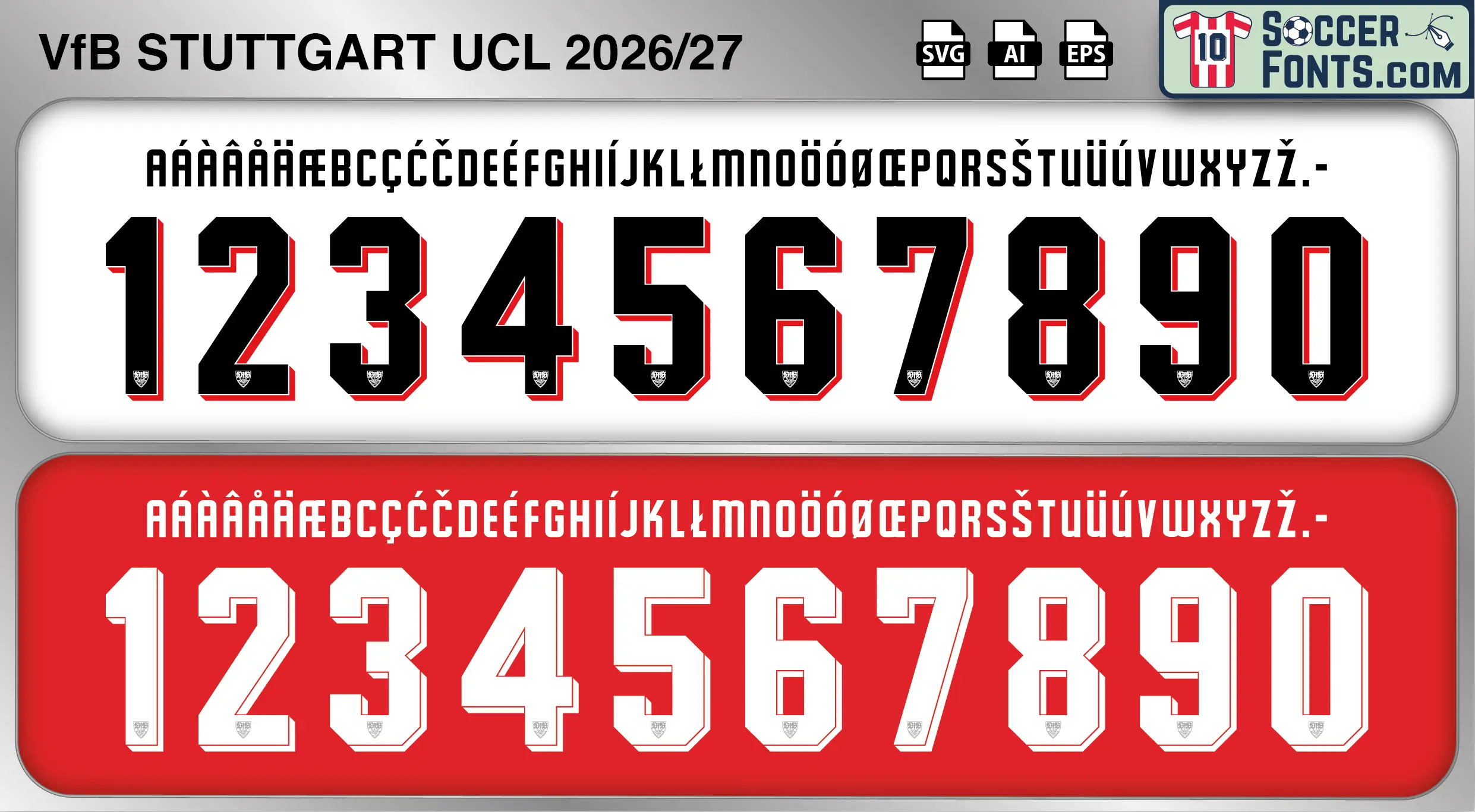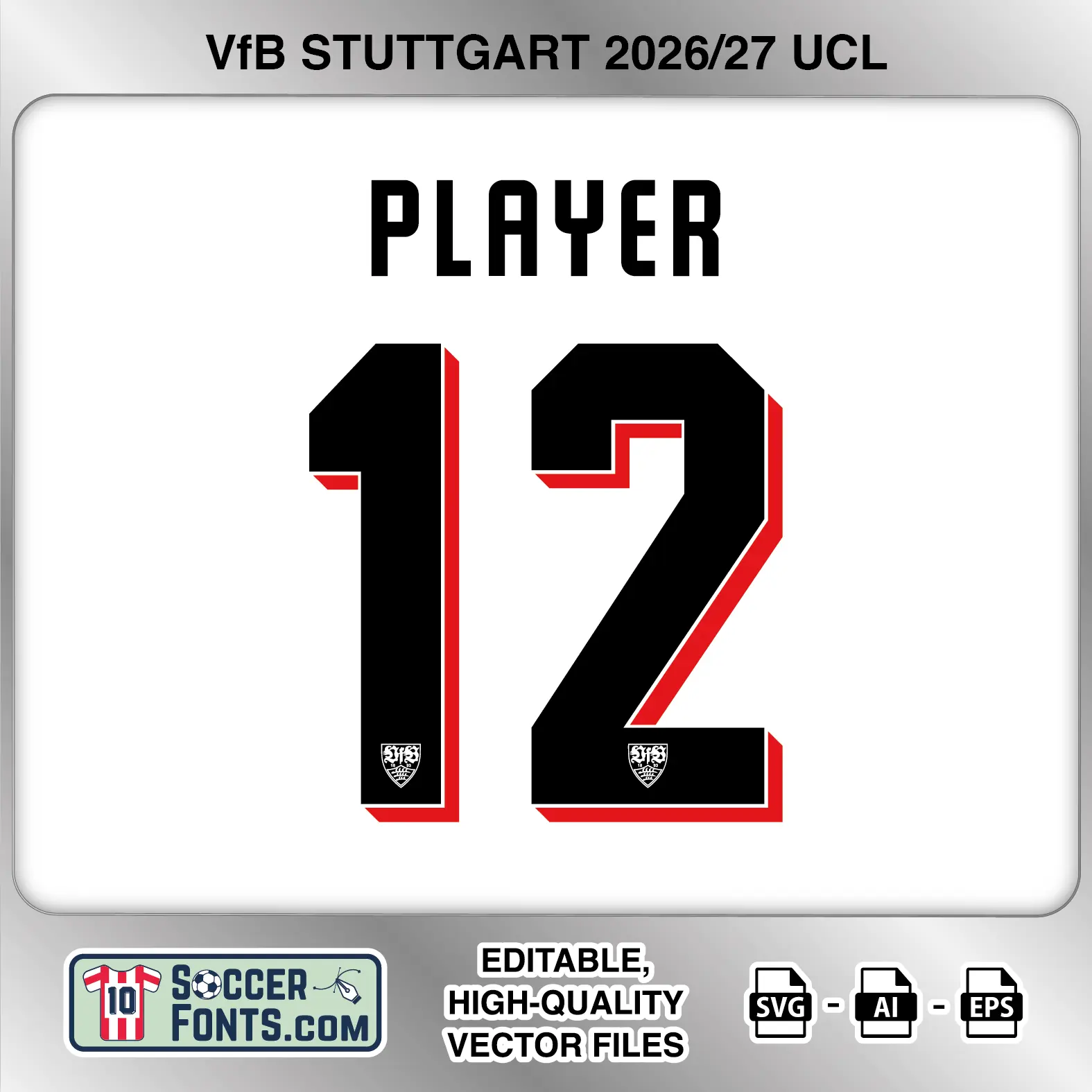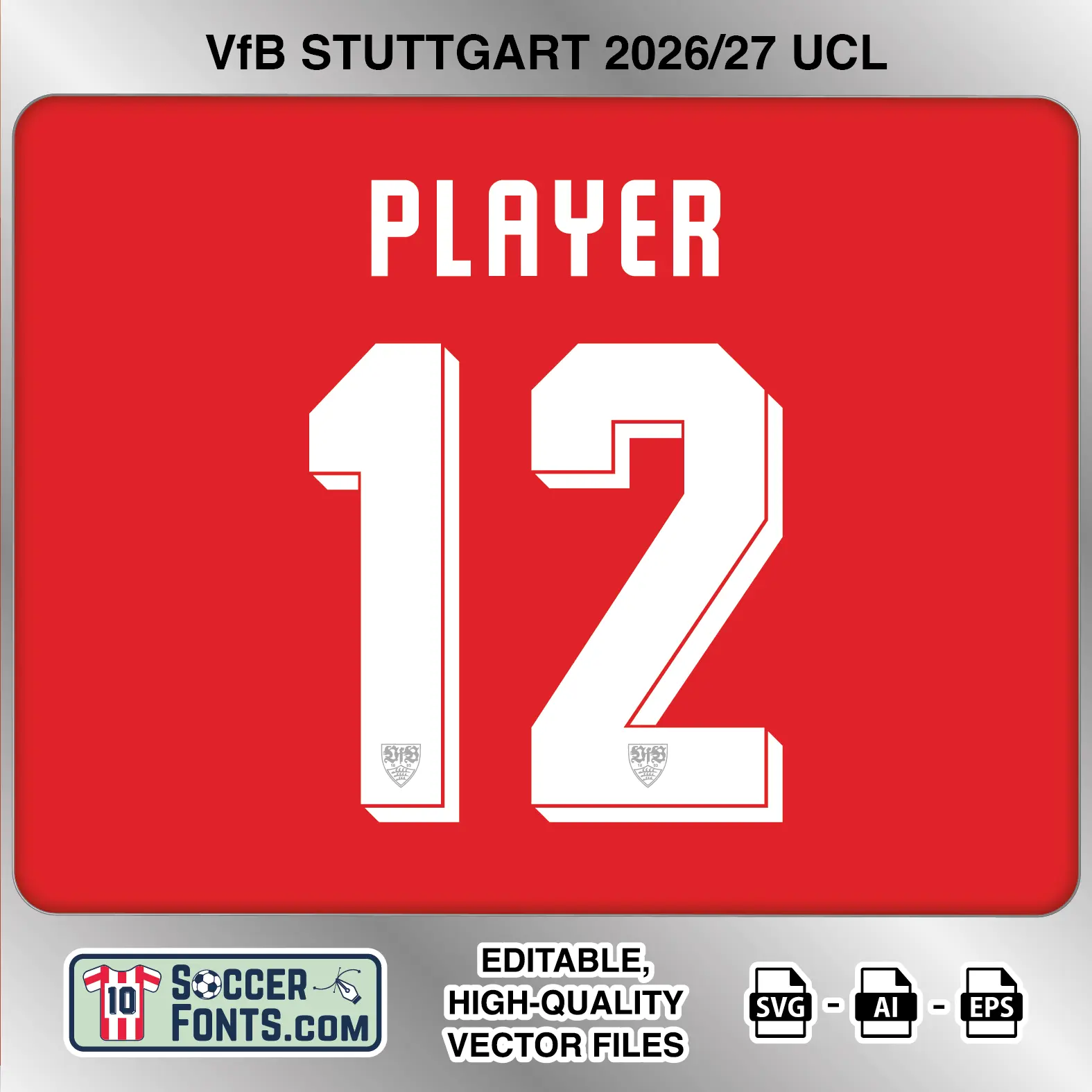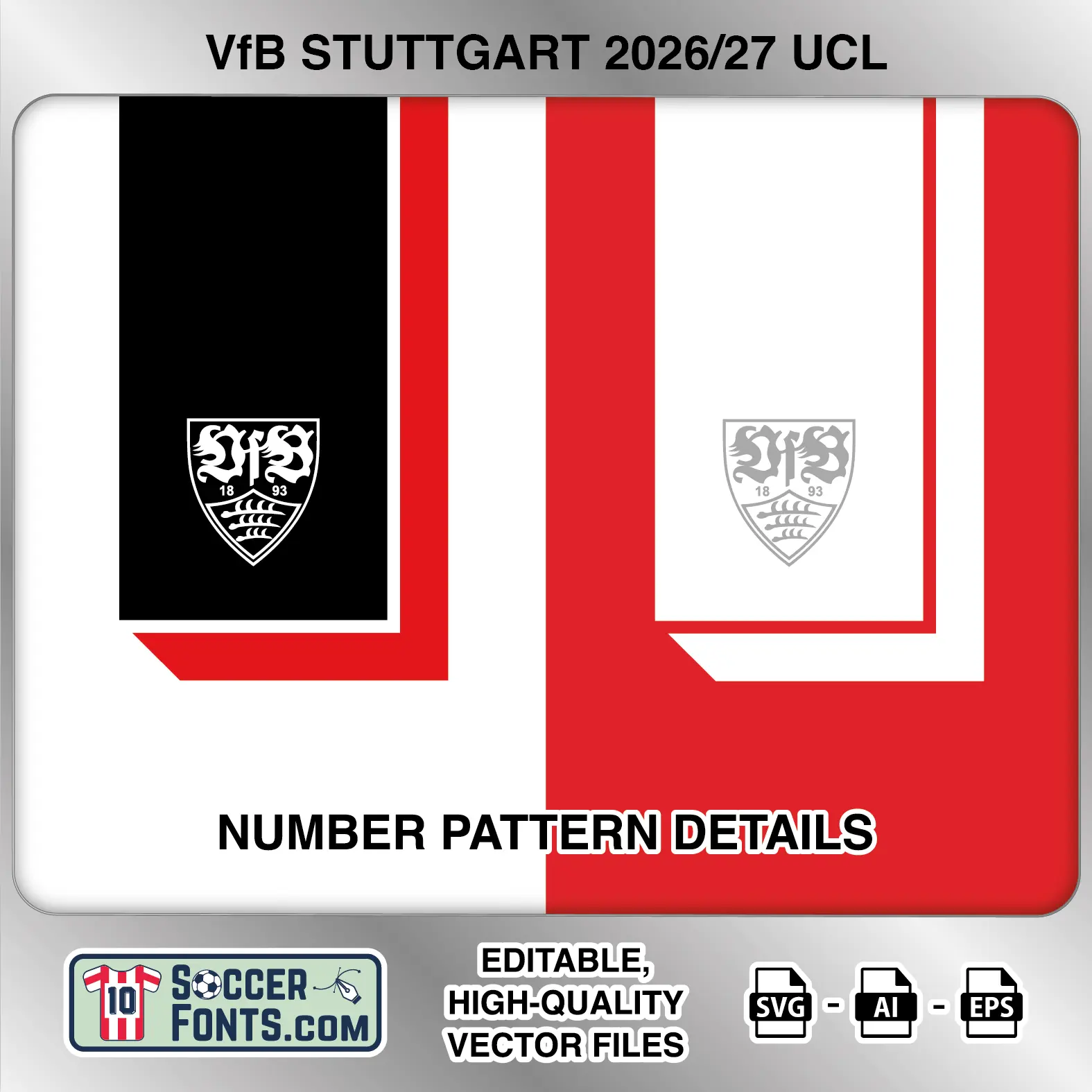
About Stuttgart 2026-27 Font UCL
Download Stuttgart 2026-27 Font UCL, an editable soccer jersey lettering design in vector format inspired by the VfB Stuttgart lettering used for UEFA Champions League matches during the 2026-27 football season. This product specifically recreates Stuttgart’s European competition lettering, which is different from the font used on the club’s domestic Bundesliga shirts.
Visual Identity of the Font Design :
The Champions League lettering uses a tall, narrow uppercase alphabet with squared construction and clipped corners. The numerals are substantially heavier, combining broad straight strokes with angular transitions and octagonal outer shapes. The 1 has a cut upper-left shoulder, the 2 features a squared top followed by a long diagonal section, while the 4, 6, 8 and 9 use sharply constructed internal spaces rather than rounded forms.
A distinctive offset layer runs along selected right and lower edges of the numbers, creating a dimensional two-color effect. On the red presentation, the primary lettering is white with red offset detailing, while the light presentation uses black characters with a bright red secondary layer. A small VfB Stuttgart crest is positioned near the bottom of every numeral. The supplied character set also includes numerous accented uppercase letters for international player names.
Context of 2026-27 Season for Stuttgart :
VfB Stuttgart returned to the UEFA Champions League for 2026-27 after finishing fourth in the previous Bundesliga campaign under Sebastian Hoeneß. The Stuttgart 2026-27 Font UCL belongs specifically to this European campaign rather than the club’s separate Bundesliga lettering. Stuttgart began the league phase at the MHP Arena with a 3-1 victory over Viking, with Ermedin Demirović scoring all three goals. The Champions League squad also includes Deniz Undav, Angelo Stiller, Chris Führich, Jamie Leweling, Bilal El Khannouss and Maximilian Mittelstädt.
The Stuttgart 2026-27 Font UCL will appear during a league-phase schedule that includes home matches against Atlético Madrid, Lille and Club Brugge, alongside away trips to Slovan Bratislava, Galatasaray, Inter Milan and PSV Eindhoven. This is Stuttgart’s second Champions League appearance in three seasons, giving the Stuttgart 2026-27 Font UCL a clear connection to another significant European campaign for the Cannstatt club.